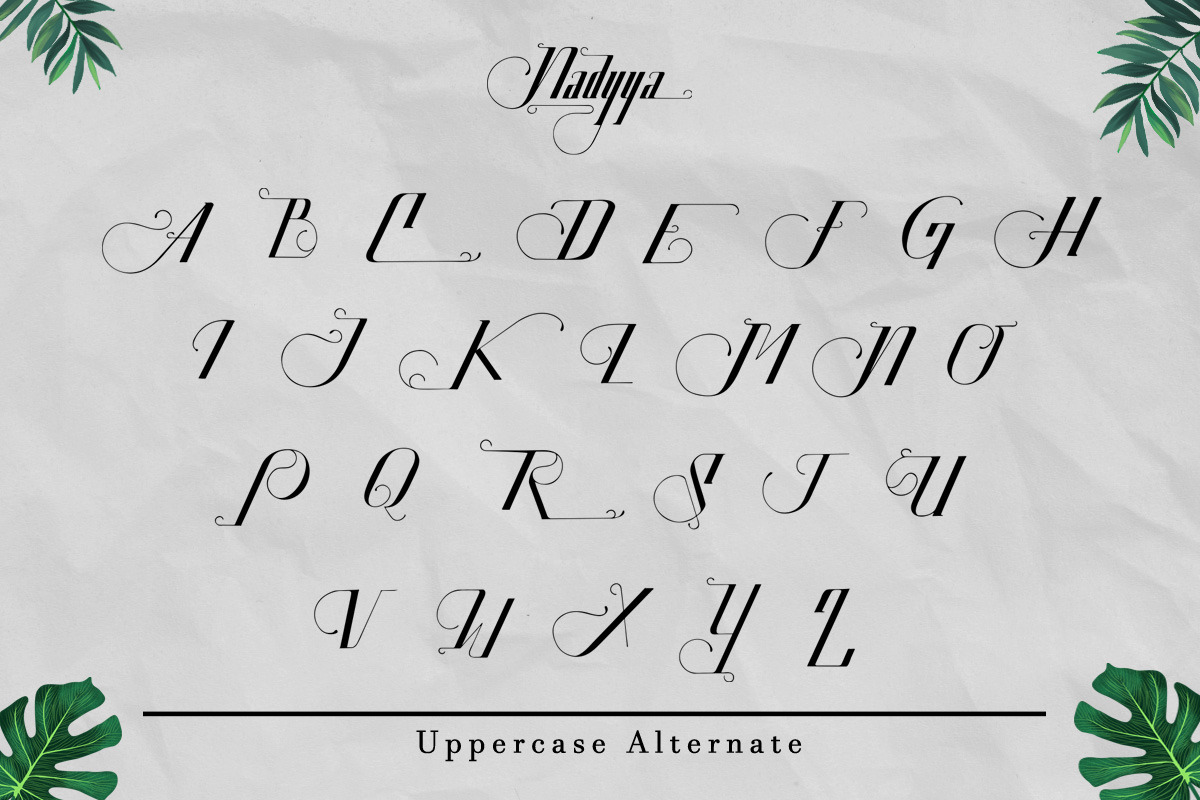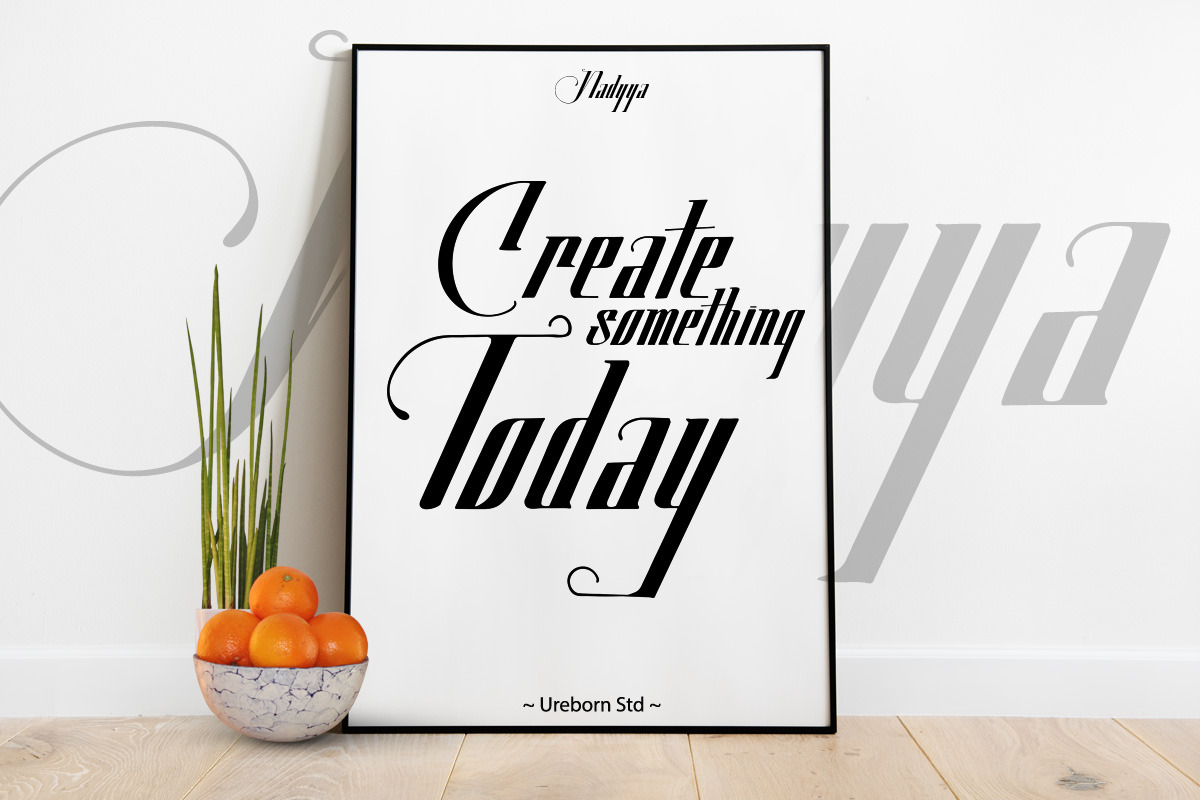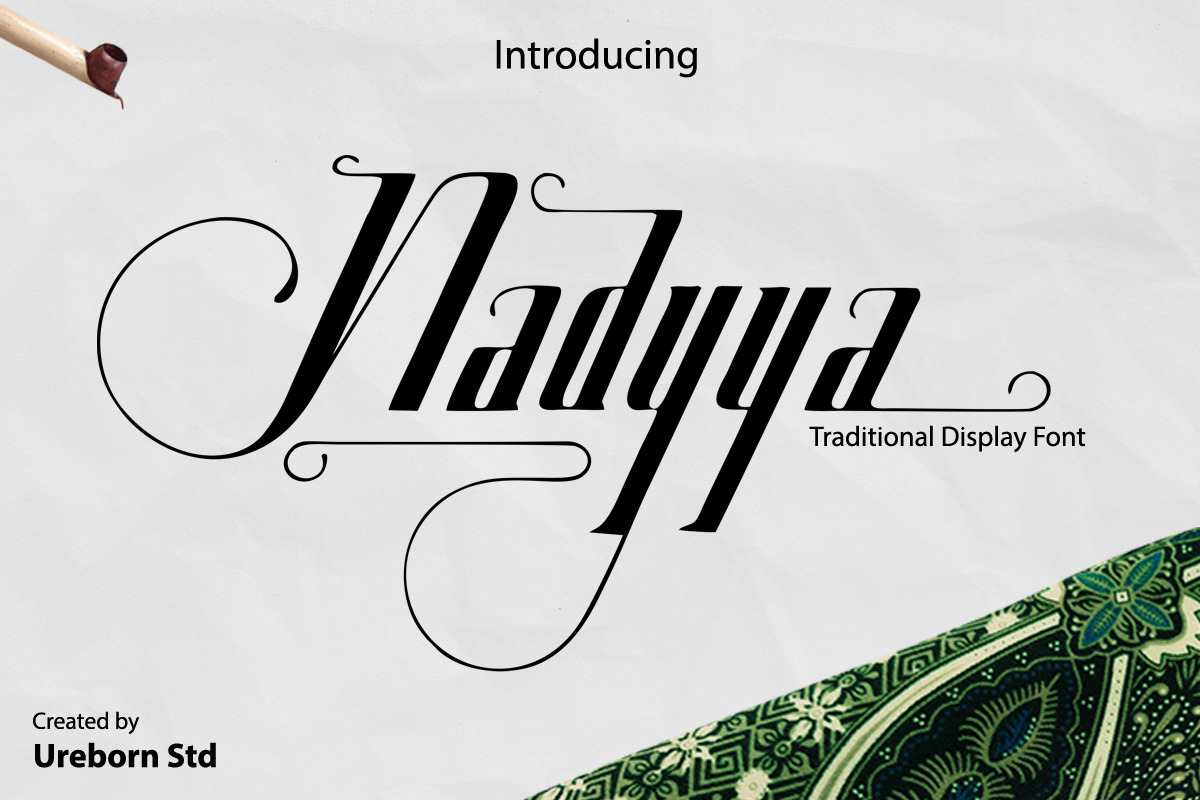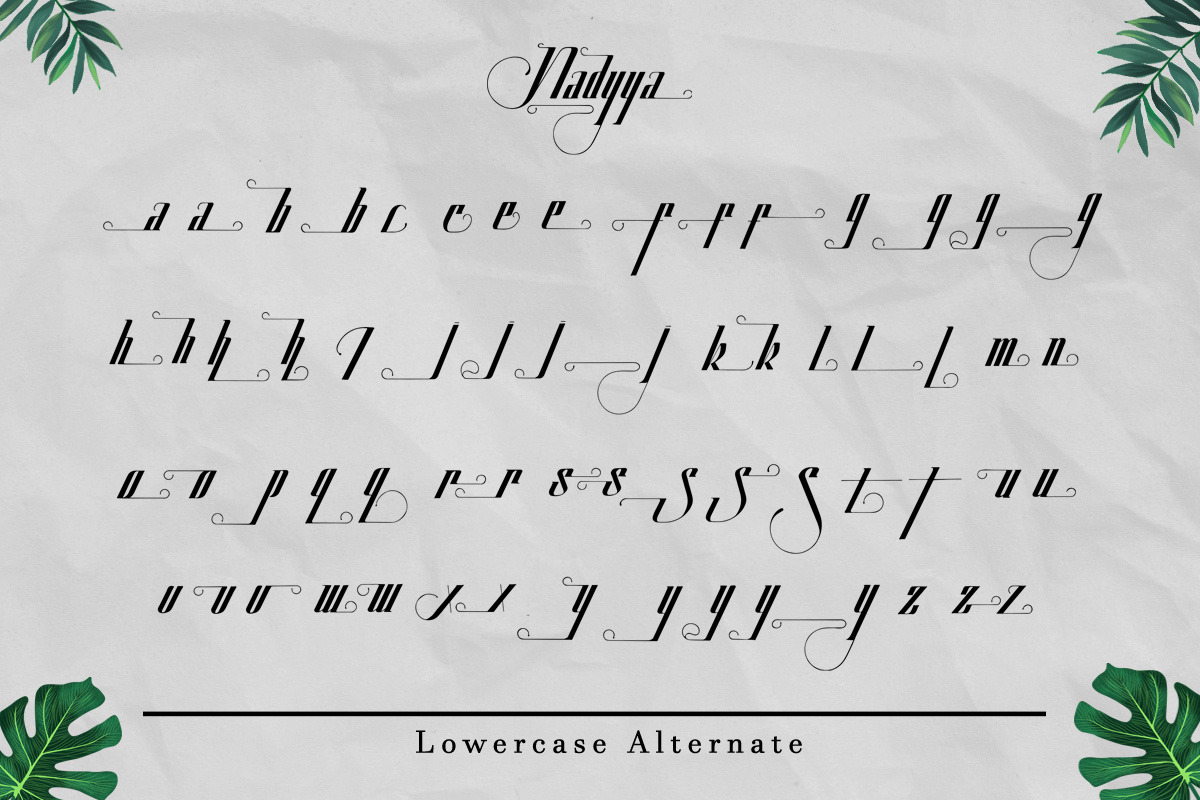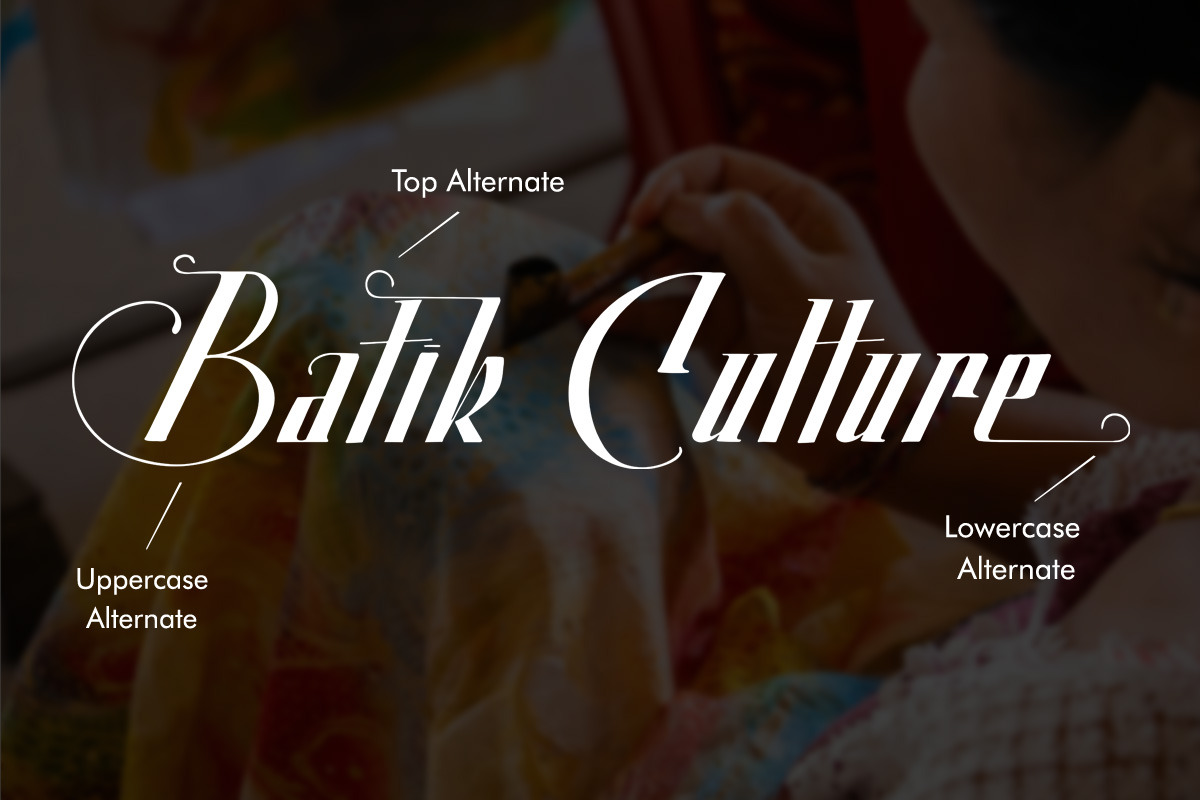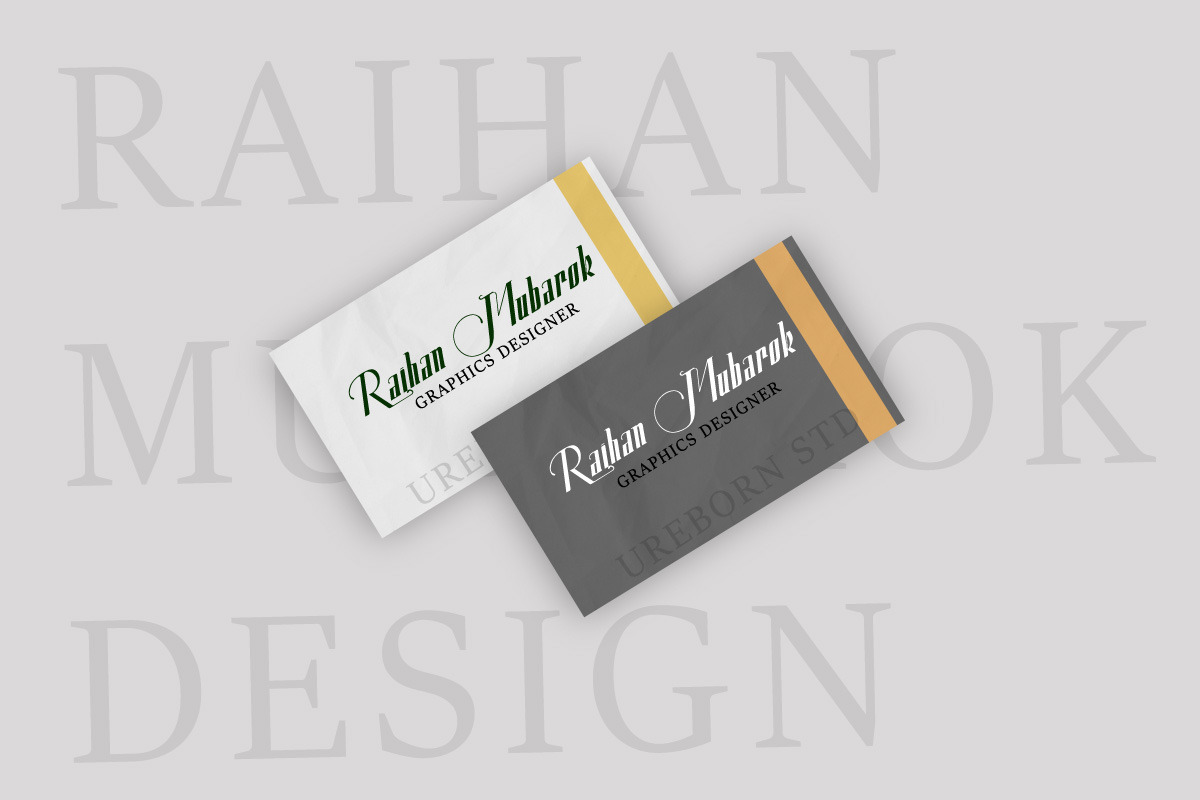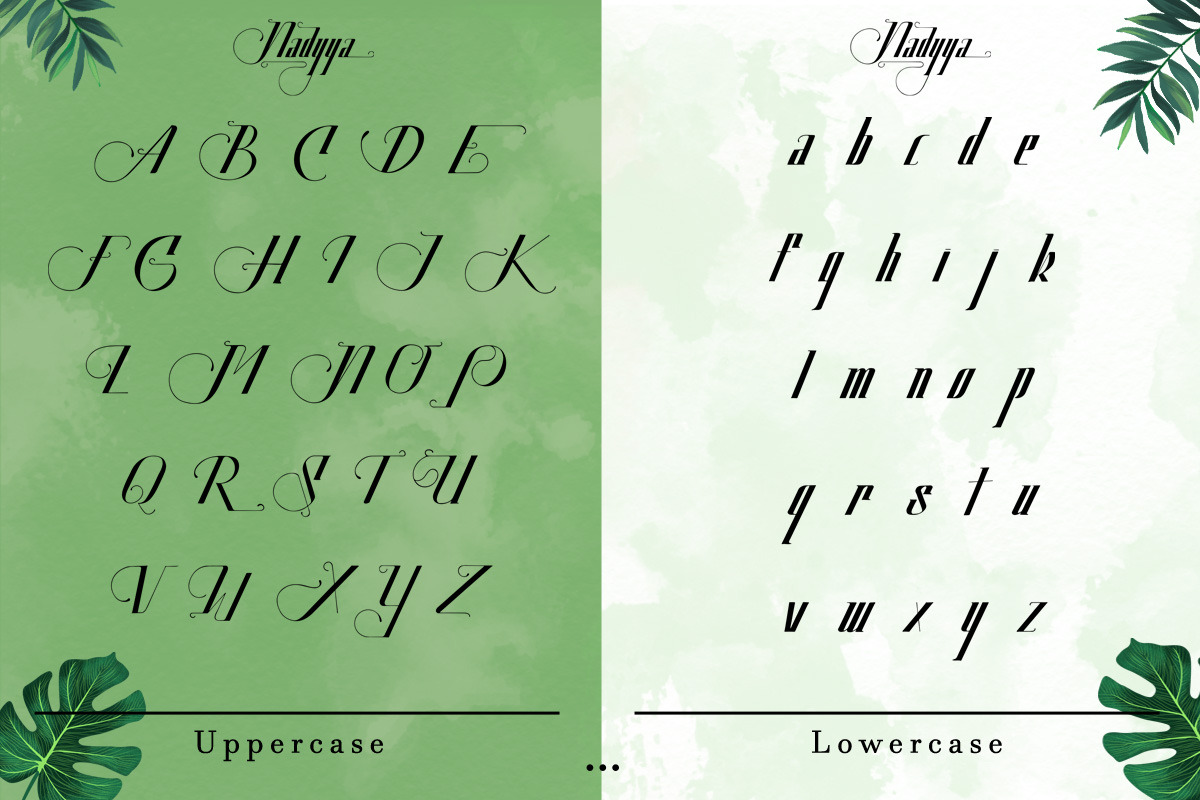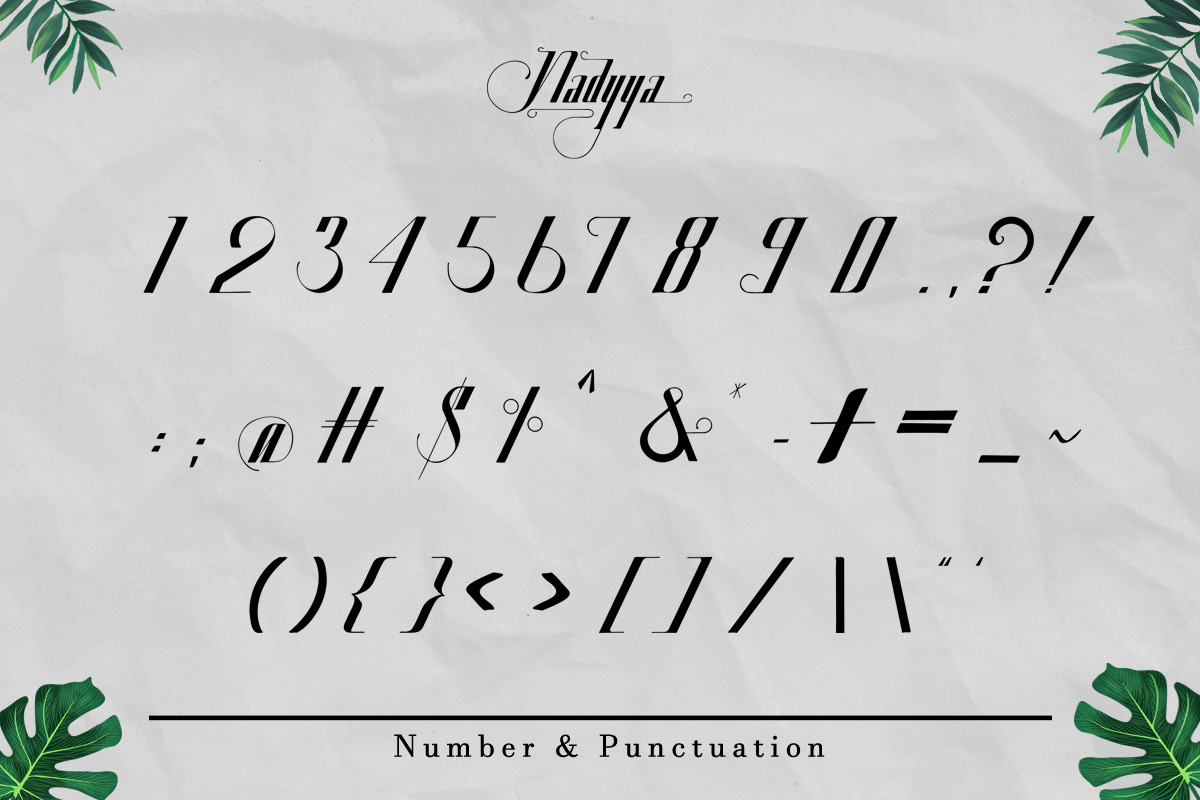
Nadyya - Traditional Display Font
Nadyya is an authentic display font that is readable, bold and stylish. It is defined by smooth curves and is perfect for fashion branding or editorial designs. Add it confidently to your projects, and you will love the results.